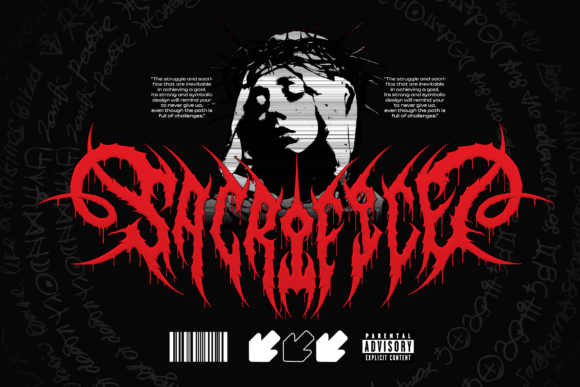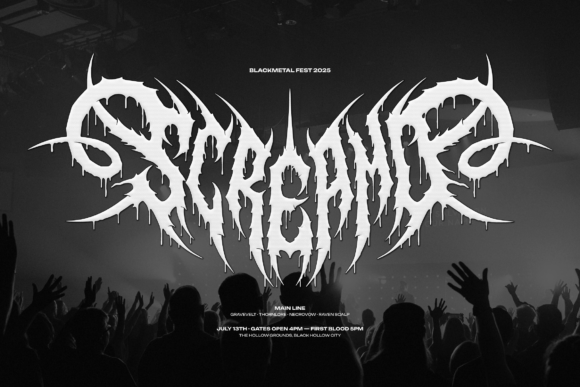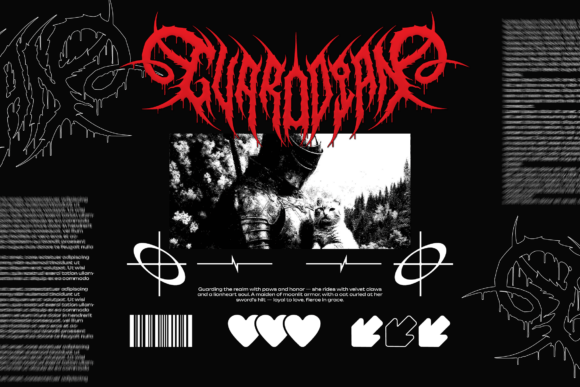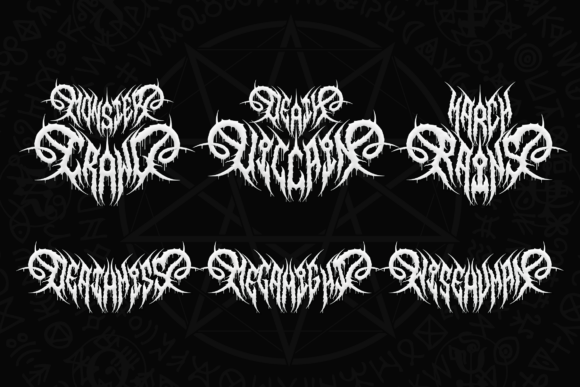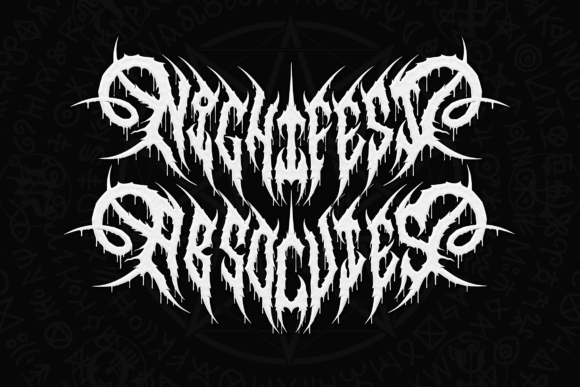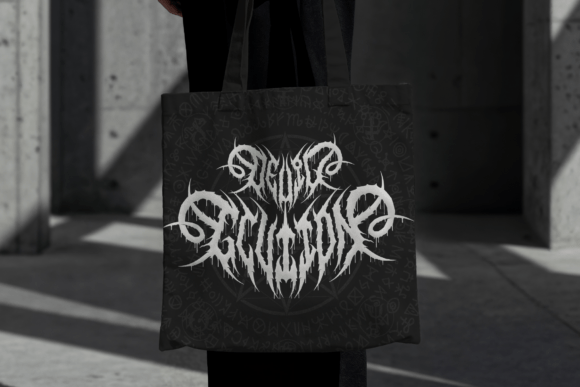
Introduction to Minotor Font
As a designer, have you ever found yourself in the middle of a creative project, desperately searching for the perfect font to bring your vision to life? The thrill of discovery, the rush of excitement when you stumble upon a font that perfectly captures the essence of your design – it’s a feeling that’s hard to beat. For those moments, we’re excited to introduce you to Minotor Font, a stunning black metal typeface that’s sure to elevate your next project to new heights.
With its sleek, high-quality design, Minotor Font is the perfect addition to any creative project. Whether you’re working on a logo, branding project, or something as unique as a custom mug, this versatile font is sure to impress. And the best part? It’s available for free download, making it an invaluable resource for designers of all levels.
So why is Minotor Font so valuable to designers? For one, its transparent background makes it easy to use in a variety of applications, from product packaging to photography. And with its edgy, industrial feel, it’s the perfect choice for any project that needs a bold, eye-catching touch.
Key Features of Minotor Font
- High-quality design resource ideal for creative projects, offering a unique and stylish touch.
- Minotor Font features a transparent background, providing users with maximum flexibility when designing.
- Unique characteristics include bold and elegant lines, making it suitable for headings, titles, and logotypes.
- Perfect for designers, artists, and individuals seeking a high-quality, professional-looking font for their creative projects.
Honest Review: Minotor Font
As a designer, I’m always on the lookout for high-quality design resources to elevate my creative projects. Recently, I stumbled upon the Minotor Font, and I must say, it’s been a game-changer.
Here are some things that work well about the Minotor Font:
- ✨ Unique and stylish design that adds a touch of sophistication to any project
- ✨ Highly versatile and can be used in a variety of creative projects, from branding to digital design
- ⚠️ Limited font styles and weights, which may not be ideal for designers who require a wide range of options
- ⚠️ Some users may find the font’s transparent background to be a bit too minimalist
Overall, I’m impressed with the Minotor Font’s high-quality design and versatility. While it may have some limitations, it’s an excellent resource for designers who want to add a touch of elegance to their creative projects.
Minotor Font
The Minotor Font is a high-quality design resource perfect for creative projects. It’s available for free download and features a transparent background, making it easy to customize.
Tips for Getting the Most Out of Minotor Font
For the best results, use the Minotor Font in conjunction with a high-quality image or graphic. You can also experiment with different font sizes and styles to create a unique look.
The Minotor Font is perfect for use in creative projects such as logos, brochures, and business cards. Its transparent background makes it easy to customize and use in a variety of design applications.